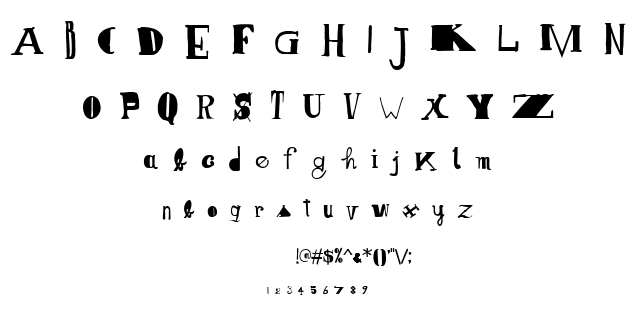
Created as an Exquisite Corpse by the Zetafonts team with guest designer Francesco Cavalli (Leftloft), this character set was assembled as the perfect font for blackmailing and hate mail. Write your worst thoughts in a cute way, blame heartless lovers and bossy coworkers, express your malice with style.For commercial licence please visit our site.